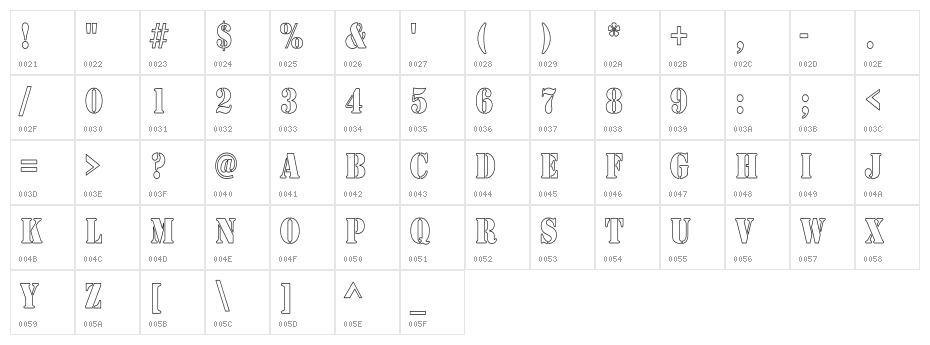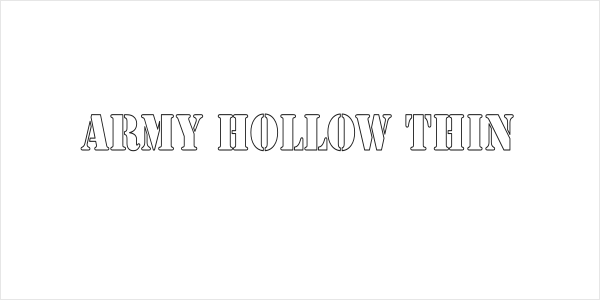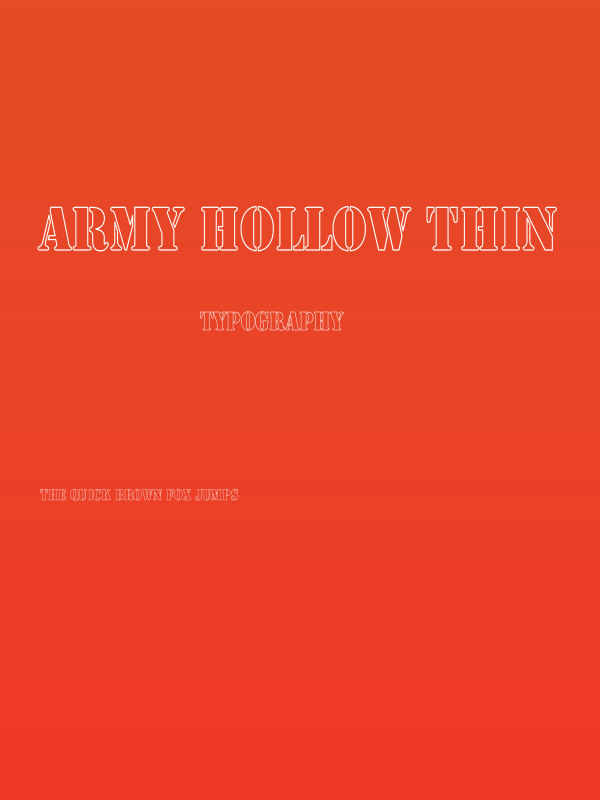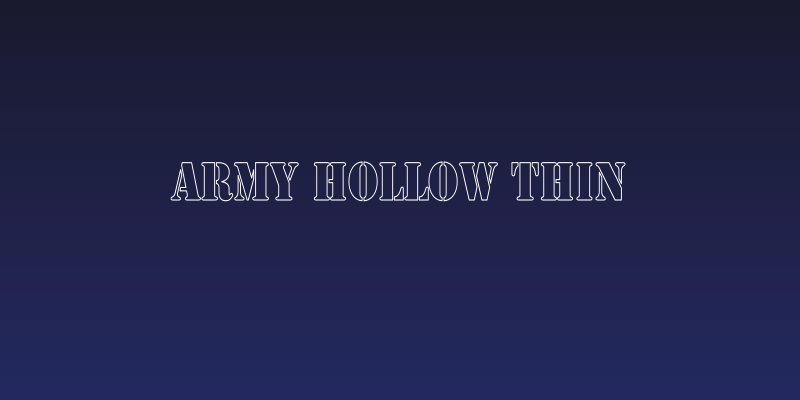
Army Hollow Thin Font
Army Hollow Thin Description
This font features a hollow, outlined design that gives it a distinctive and bold appearance. The uppercase letters are uniform in height and width, creating a strong visual impact. The characters have a classic serif style with sharp, angular edges, adding a touch of elegance and formality. The numbers and special characters maintain the same hollow, outlined style, ensuring consistency across all elements. This font's unique design makes it stand out, offering a modern twist on traditional serif fonts. Its hollow nature allows for creative use of background colors or textures to show through, enhancing its visual appeal.